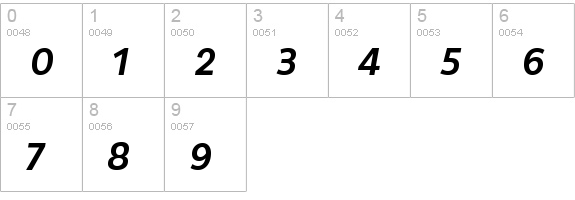
Pluto Cond Medium Italic is a balanced, medium-weight, condensed-width, italic variant in the Pluto typeface family \xE2\x80\x94 well suited to sub-headlines, navigation, and balanced editorial work.
Pluto Cond Medium Italic font is a dynamic and modern typeface that exudes sophistication and elegance. Its sleek design and slanted italic style add a touch of flair to any project, making it perfect for both professional and creative endeavors. This font strikes the perfect balance between boldness and refinement, making it versatile for a wide range of design applications. Best of all, Pluto Cond Medium Italic font is available for free download at FontsMarket.com. This means you can easily access this high-quality font without any cost, allowing you to elevate your designs without breaking the bank. Whether you're working on a branding project, marketing materials, or creative art pieces, Pluto Cond Medium Italic font is sure to make a lasting impression. Download it today and add a touch of sophistication to your next project!